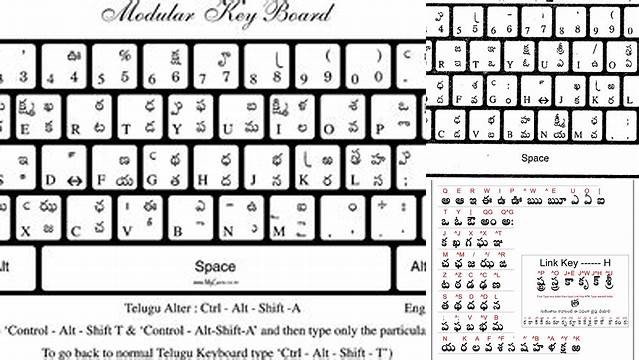
Anu Fonts Telugu Keyboard: Layout & PDF Guide
Hey guys! Ever struggled with typing in Telugu on your computer? It can be a bit tricky, especially if you're not familiar with the layout. That's where Anu Fonts Telugu Keyboard comes in! This guide will walk you through everything you need to know about Anu Fonts, its Telugu keyboard layout, and how to use it effectively. We'll also provide you with a downloadable PDF for easy reference. So, let's dive in and make typing in Telugu a breeze!
Understanding Anu Fonts
Before we get into the specifics of the keyboard layout, let's talk about Anu Fonts itself. What are they? Why are they important? Anu Fonts are a popular set of fonts used for typing in Telugu. They're widely recognized and supported, making them a reliable choice for anyone looking to write in this beautiful language on their computer. These fonts are designed to display Telugu characters accurately and aesthetically, ensuring that your text looks great whether you're writing a formal document or a casual message. The clarity and readability of Anu Fonts make them a favorite among Telugu writers, students, and professionals alike. If you're just starting with Telugu typing, understanding the importance of high-quality fonts like Anu can make a huge difference in your experience. Using well-designed fonts ensures that the characters are displayed correctly, preventing any misinterpretations or errors in your writing. Plus, the consistent and professional look of Anu Fonts can enhance the overall presentation of your documents and projects. So, take the time to familiarize yourself with Anu Fonts, and you'll be well on your way to typing in Telugu like a pro!
Benefits of Using Anu Fonts for Telugu Typing
Why should you choose Anu Fonts for your Telugu typing needs? Well, there are several compelling reasons. First and foremost, Anu Fonts are known for their clarity and readability. The characters are designed to be easily distinguishable, reducing the chances of errors and making your text more pleasant to read. This is especially crucial when dealing with a script as intricate as Telugu. Another major advantage is the widespread support for Anu Fonts. Many software applications and platforms recognize and support these fonts, ensuring compatibility across different systems. This means you can type in Telugu using Anu Fonts in your word processor, email client, or even on the web without worrying about display issues. Furthermore, Anu Fonts often come with a consistent keyboard layout, which can significantly improve your typing speed and accuracy once you get the hang of it. By using a standardized layout, you can develop muscle memory and type more fluently without having to constantly search for the correct characters. In addition to these practical benefits, Anu Fonts also contribute to the overall aesthetic appeal of your text. The well-designed characters add a touch of elegance and professionalism to your writing, making it look polished and refined. Whether you're creating a formal document, a creative piece, or simply communicating with friends and family, using Anu Fonts can elevate the visual impact of your Telugu text. So, when you're looking for a reliable and visually appealing font for Telugu typing, Anu Fonts are definitely worth considering.
Overview of the Telugu Keyboard Layout
The Telugu keyboard layout can seem a bit daunting at first, but don't worry, it's not as complicated as it looks! The layout is designed to accommodate the extensive character set of the Telugu script, including vowels, consonants, and various diacritics. Understanding the basic structure of the layout is the first step towards mastering Telugu typing. The keys are arranged in a way that attempts to optimize for the frequency of character usage, placing commonly used characters in easily accessible positions. Many layouts also incorporate a system of combining keys or using the Shift key to access additional characters and symbols. This is a common approach in Indic scripts to efficiently represent the large number of possible characters. To get a good grasp of the layout, it's helpful to visualize it as a map of characters. Each key corresponds to one or more Telugu letters or symbols, and learning this mapping is crucial for fast and accurate typing. You'll notice that some keys produce basic vowels and consonants directly, while others are used in combination to create more complex characters. For example, some keys might represent diacritics or vowel signs that are added to consonants to change their sound. Practicing with the layout regularly will help you build muscle memory and learn where each character is located. Start by focusing on the most commonly used characters and gradually expand your knowledge as you become more comfortable. Remember, the key to mastering any keyboard layout is consistent practice and a willingness to learn!
Even with the best preparation, you might run into some issues while using the Anu Fonts Telugu keyboard layout. Don't worry, though! Most of these problems are easily fixable. One common issue is that the Telugu characters might not display correctly. This can happen if the Anu Fonts are not installed properly or if your application is not configured to use them. Double-check that you've installed the fonts correctly and that they are selected in your application's font settings. Another issue you might encounter is that the keyboard layout might not be activated. Make sure you've added Telugu as a language in your system settings and that the Telugu keyboard layout is selected as the active input method. Sometimes, the keyboard layout might switch back to your default language unexpectedly. This can be frustrating, but it's usually just a matter of switching back to the Telugu layout using the keyboard shortcut (e.g., Alt+Shift or Ctrl+Shift). If you're using an older version of Windows, you might need to enable support for complex script languages in the Regional and Language Options settings. This will ensure that Telugu characters are displayed correctly. Another potential issue is that some characters might not be available on the standard keyboard layout. In this case, you might need to use a character map or a virtual keyboard to insert those characters. If you're still having trouble, try searching online for solutions or consulting a Telugu typing forum. There are many helpful resources available that can guide you through troubleshooting common issues. Remember, everyone encounters technical difficulties from time to time. The key is to be patient, persistent, and willing to seek out solutions. With a little bit of effort, you'll be typing in Telugu smoothly in no time!
Tips and Tricks for Faster Telugu Typing
Want to become a Telugu typing whiz? Here are some tips and tricks to help you boost your speed and accuracy. First and foremost, practice, practice! The more you type, the more familiar you'll become with the keyboard layout, and the faster your fingers will move. Set aside some time each day to practice typing in Telugu, even if it's just for a few minutes. Another key to faster typing is to learn the keyboard layout by heart. Try to memorize the positions of the most commonly used characters, so you don't have to keep looking at the keyboard. You can use the Anu Fonts Telugu keyboard layout PDF as a reference, but aim to eventually type without it. Touch typing is a technique that can significantly improve your typing speed and accuracy. This involves using all your fingers to type, rather than just a few. There are many online resources and typing tutors that can help you learn touch typing. Use online typing games and exercises to make your practice sessions more engaging and fun. These games can help you improve your typing speed and accuracy in a playful way. Pay attention to your posture and hand positioning. Sit up straight, keep your wrists relaxed, and position your hands comfortably on the keyboard. Good ergonomics can prevent strain and fatigue, allowing you to type for longer periods without discomfort. Use keyboard shortcuts to speed up your workflow. For example, you can use Ctrl+C to copy, Ctrl+V to paste, and Ctrl+Z to undo. Learning these shortcuts can save you a lot of time and effort. Don't be afraid to experiment with different typing styles and techniques. Find what works best for you and adapt your approach as needed. Finally, be patient and persistent. Learning to type in a new language takes time and effort. Don't get discouraged if you don't see results immediately. Keep practicing, and you'll gradually improve your skills.
Understanding Telugu Script and its Nuances
To truly master Telugu typing, it's not enough to just know the keyboard layout. Understanding the Telugu script itself is crucial. The Telugu script is an alphabetic writing system used to write the Telugu language, one of the major Dravidian languages of India. It's a beautiful and intricate script with a rich history and cultural significance. The script consists of vowels, consonants, and various diacritics that modify the sounds of the letters. One of the key features of the Telugu script is the way consonants and vowels combine to form syllables. When a vowel follows a consonant, it's often represented by a diacritic mark attached to the consonant. These diacritics can appear above, below, before, or after the consonant, adding to the complexity of the script. Another important aspect of the Telugu script is the use of conjunct consonants. These are combinations of two or more consonants that are written together as a single unit. Conjunct consonants can be challenging to learn, but they are an essential part of the script. Understanding the nuances of the Telugu script can significantly improve your typing accuracy and fluency. When you know how the letters combine and interact, you'll be able to type more intuitively and avoid mistakes. Learning about the script can also give you a deeper appreciation for the language and its cultural heritage. There are many resources available online and in libraries that can help you learn more about the Telugu script. Take the time to study the script, practice writing the letters, and explore its history and evolution. The more you understand the script, the better you'll become at typing in Telugu.
Conclusion: Mastering Anu Fonts Telugu Keyboard Layout
So, guys, we've covered a lot in this guide! From understanding Anu Fonts and the Telugu keyboard layout to troubleshooting common issues and exploring advanced typing techniques, you're now well-equipped to master Telugu typing. Remember, the key to success is practice, practice! Download the Anu Fonts Telugu keyboard layout PDF, set up your computer, and start typing. Don't be afraid to make mistakes – they're a natural part of the learning process. And most importantly, connect with the Telugu typing community for support and inspiration. With dedication and the right resources, you'll be typing fluently in Telugu in no time. Happy typing!